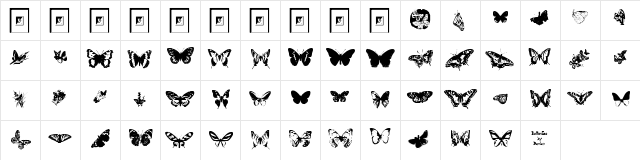
Butterflies by Darrian Ultra-expanded
Design Context for Butterflies by Darrian Typeface
Butterflies by Darrian is a composed and adaptable typeface that performs quietly and consistently across a wide range of design contexts.